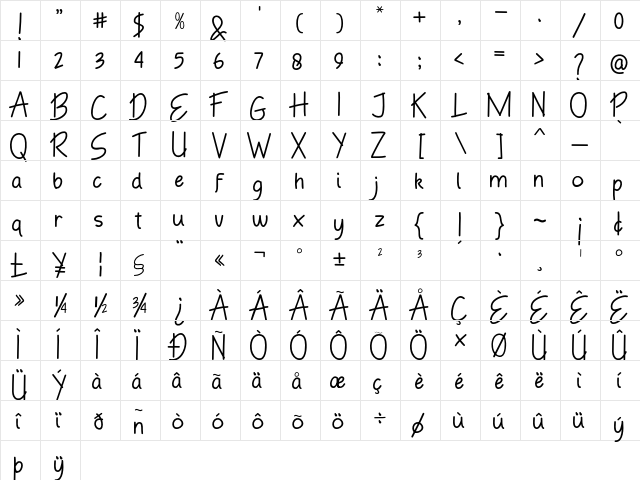
Hand Boys Regular
Design Context for Hand Boys Typeface
Hand Boys flows with the natural rhythm of handwritten lettering, making it ideal for designs that call for warmth and personal expression.
Font Pairing: Combine Hand Boys with a simple geometric sans for maximum contrast — the tension between flowing curves and clean structure is a classic typographic pairing.
Pro Tip: Use Hand Boys for short runs of text — names, titles, or taglines. Extended body copy in script faces tires the eye quickly.